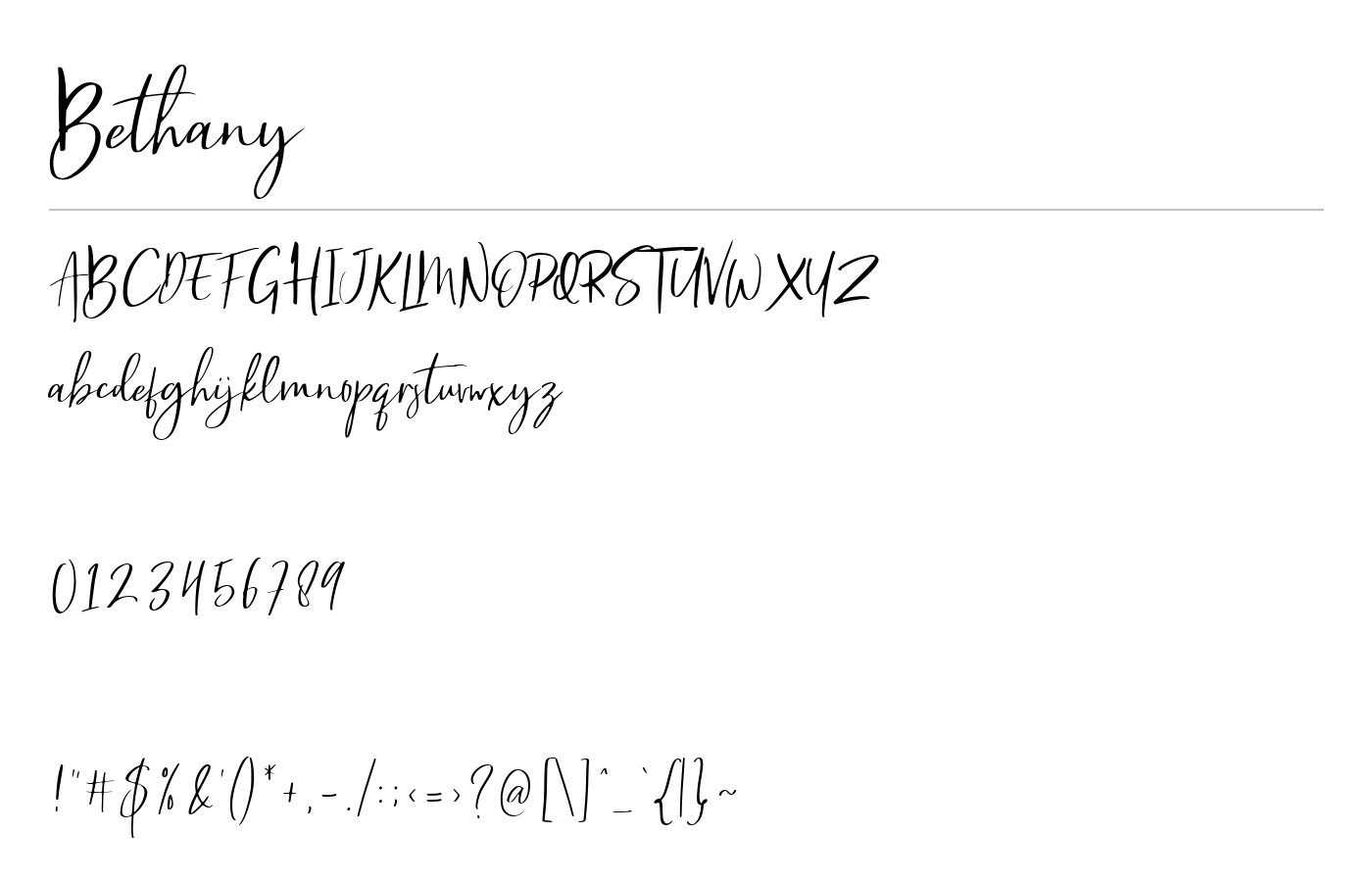
Bethany Font is a delicate script typeface with a hand-drawn, elegant feel. Featuring slender, flowing letterforms with varying stroke widths, it offers a refined and personal touch that works beautifully for invitations, branding, and feminine design projects. Its light and airy style makes it perfect for adding a sophisticated yet approachable charm to headlines and decorative text.
Bethany Font
About Bethany Font